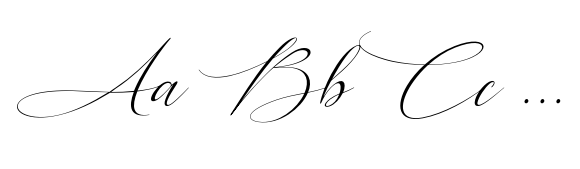
Herdiya
by Sulthan Studio
The Herdiya Font Family was designed by Nasrullah and published by Sulthan Studio. Herdiya contains 1 styles.
Introducing
Our new product called Herdiya Calligraphy Modern.
Herdiya font includes uppercase and lowercase letters, numbers, various punctuation marks, and ligatures. Uppercase and lowercase letters include initial and final swashes on lowercase letters, alternates and ligatures